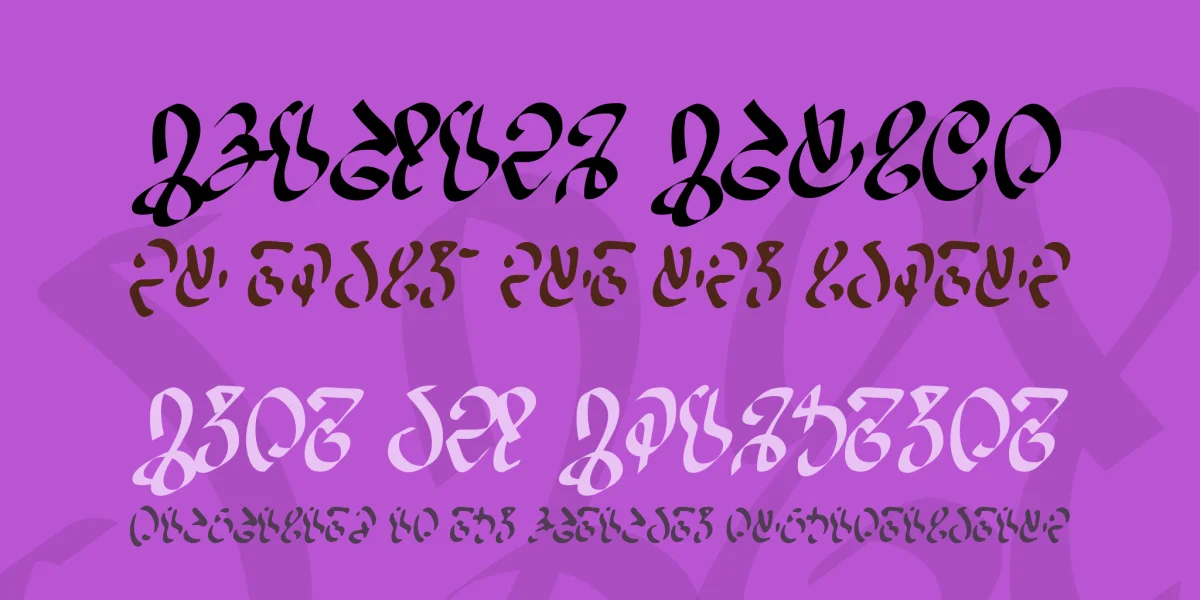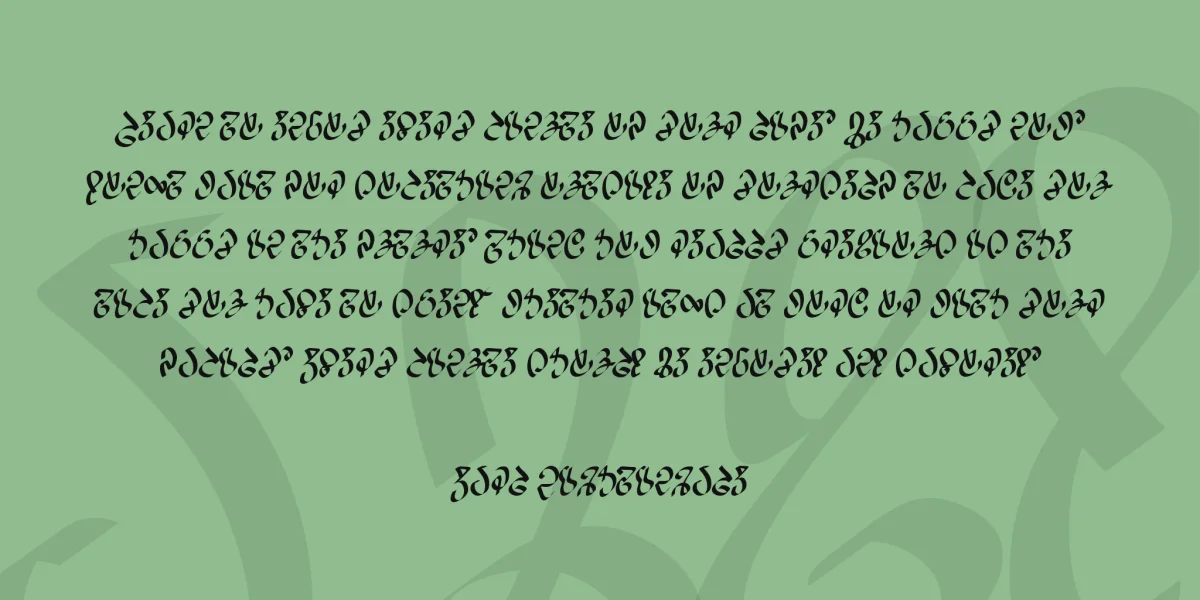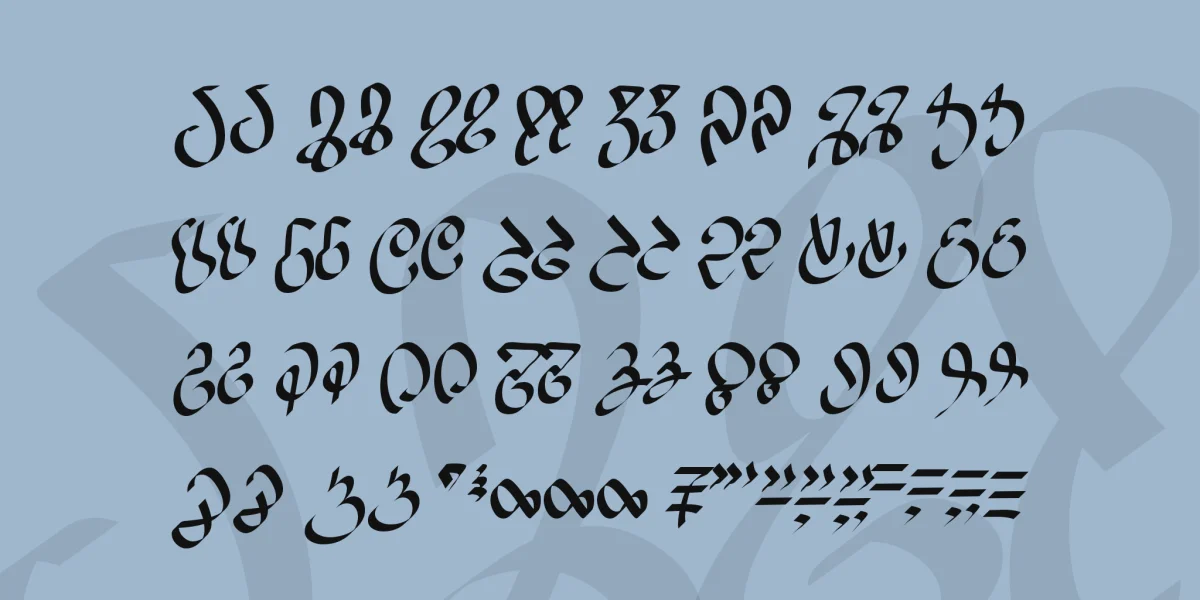
Ho there puny human filth! I am Cavalrybot 112-D. Due to my extensive military background, and impressive knowledge of thousands of cultures, I have been instructed to direct your attention to this Symbol font. It can be used as alien languages, arcane writing or just about nything else you don't want your readers to understand. Hey wait a minute! Get back here! I'm not done with you yet! What's that, you slimy turd-dropping fleshy? Don't you talk back to me! DROP AND GIVE ME 800! For more information and for more free and original fonts visit Blambot: